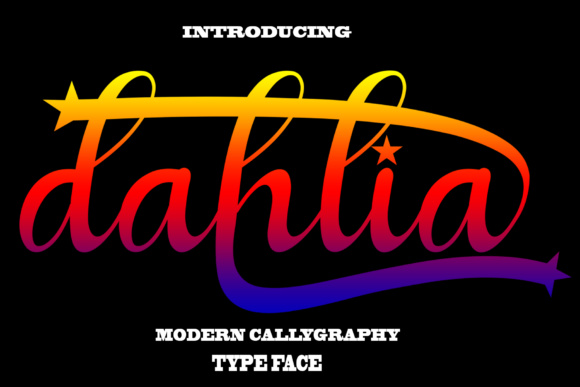
Step into the enchanting world of Dahlia Font, a script font that will captivate your senses and leave you spellbound. Designed with meticulous precision, Dahlia Font exudes elegance and sophistication, making it the perfect choice for those seeking a touch of magic in their designs.
With its graceful curves and delicate flourishes, Dahlia Font dances across the page like a ballerina, adding a touch of whimsy and charm to your words. Its carefully crafted details, from the sweeping ascenders to the playful descenders, create a visual symphony that will leave you breathless.
Immerse yourself in the artistry of Dahlia Font and discover a world of creative possibilities. Whether you're crafting logos, invitations, social media posts, or website designs, Dahlia Font will elevate your work to new heights of beauty and sophistication.
Embark on a journey of self-expression and let Dahlia Font be your guide. Allow its enchanting aura to transport you to a realm of creativity and wonder, where your imagination knows no bounds.
Make a statement and leave an unforgettable impression with Dahlia Font. Its captivating design will make your words shine and resonate with your audience, leaving them captivated and eager for more.